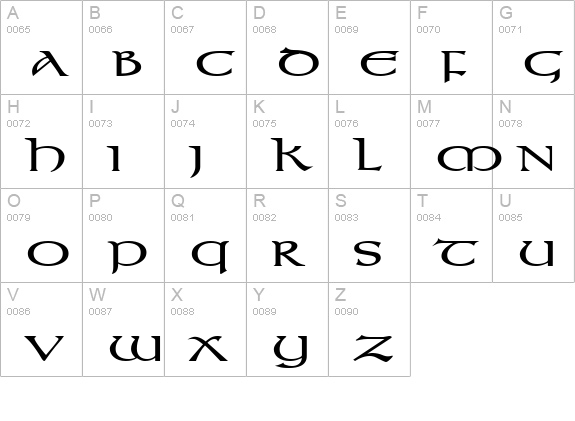
Kelt Extended Bold is a strong, high-contrast, extended-width variant in the Kelt typeface family \xE2\x80\x94 well suited to headlines, attention-grabbing titles, and strong calls-to-action.
Kelt Extended Bold font is a striking and versatile typeface that exudes confidence and strength. Its bold and extended letterforms add a touch of modernity and elegance to any design project. With its clean lines and distinct geometric shapes, this font is perfect for creating eye-catching headlines, logos, posters, and more. What sets Kelt Extended Bold font apart is not only its aesthetic appeal but also its availability. It is freely available to download at FontsMarket.com, making it accessible to designers and creatives who are looking for a high-quality font without any cost. This means that you can add a touch of sophistication to your projects without breaking the bank. Whether you're working on a branding project, advertising campaign, or website design, Kelt Extended Bold font will elevate your work to new heights. Its bold weight commands attention, while its extended proportions provide a modern and trendy look. The sharp and clean lines ensure legibility even at small sizes, making it suitable for both print and digital mediums. In addition to its aesthetic qualities, Kelt Extended Bold font also offers a wide range of language support, making it suitable for international projects. Its versatility extends beyond just headlines and titles - it can also be used for body text, captions, and subheadings, providing a consistent and cohesive visual identity throughout your designs. Overall, Kelt Extended Bold font is a powerful and stylish typeface that will make your designs stand out from the crowd. With its free availability on FontsMarket.com, there's no reason not to give your projects the professional touch they deserve. Download Kelt Extended Bold font today and take your designs to the next level.